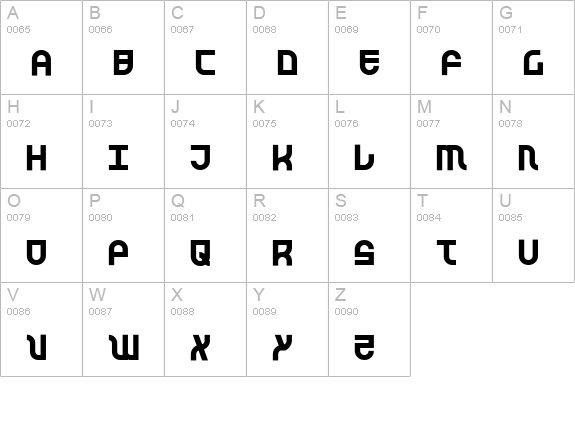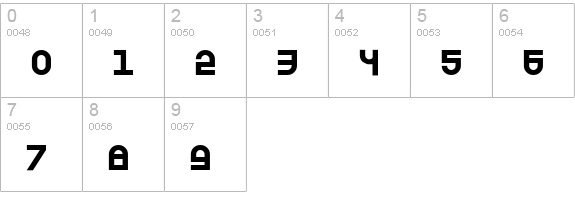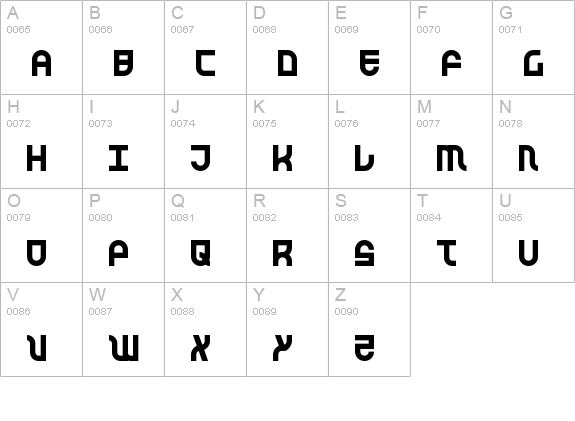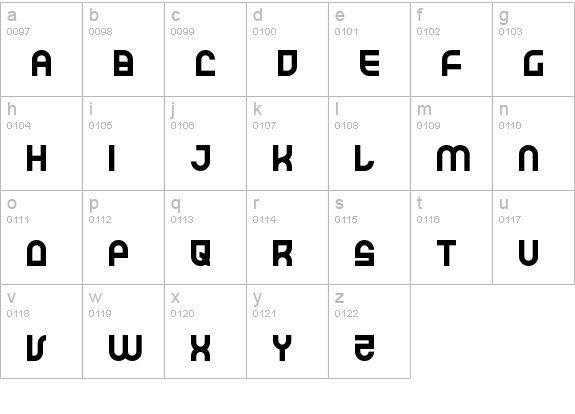
The Trek Trooper font is a bold and futuristic typeface that exudes a sense of adventure and exploration. With its sleek lines and sharp edges, this font is perfect for projects that require a modern and sci-fi inspired look. Whether you're designing a poster for a space-themed event or creating branding for a tech startup, Trek Trooper will make your text stand out and grab attention. The best part about Trek Trooper font is that it is available for free download at FontsMarket.com. This means you can easily add this eye-catching typeface to your design arsenal without breaking the bank. Don't miss out on the opportunity to enhance your projects with the unique style of Trek Trooper – download it now and start creating stunning visuals that will leave a lasting impression.